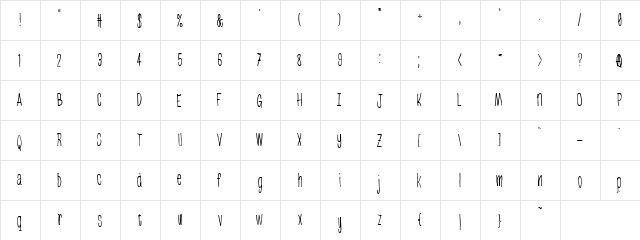
greenbeans Thin
| Designer | Tup Wanders |
Design Context for greenbeans Typeface
greenbeans offers clean, dependable letterforms without strong stylistic allegiance, making it a practical choice for designers who need flexibility. The delicate stroke weight brings airiness and refinement to layouts.